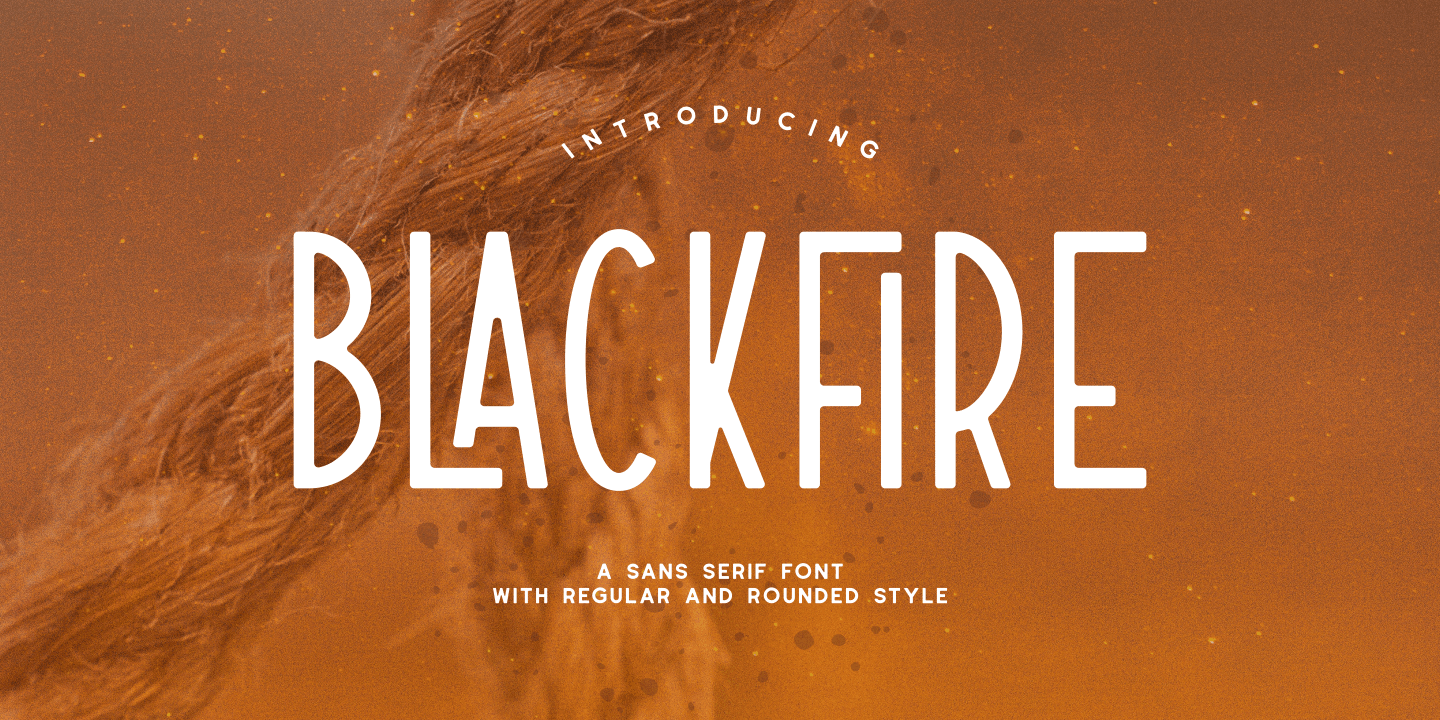
Blackfire Font Free Download is a captivating display typeface that combines bold, geometric shapes with subtle curves, resulting in a modern yet timeless design. Its clean lines and distinctive character make it an excellent choice for a variety of design projects, including branding, advertising, editorial layouts, and digital interfaces.
The font's versatility allows it to be used effectively in both large and small sizes, ensuring readability and impact across different mediums. Whether you're designing a logo, a website header, or a promotional poster, Blackfire Font Free Download provides the flexibility and style needed to make your designs stand out.
Incorporate Blackfire Font Free Download into your design projects to add a touch of modern elegance and boldness. Its distinctive style will help your work make a lasting impression.